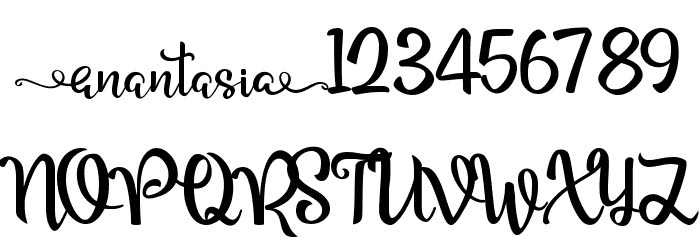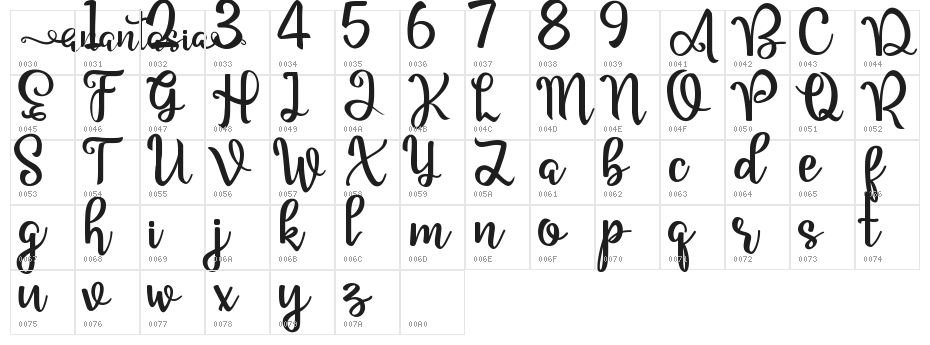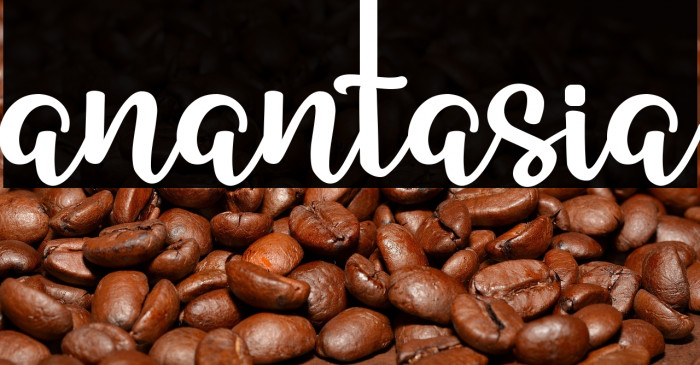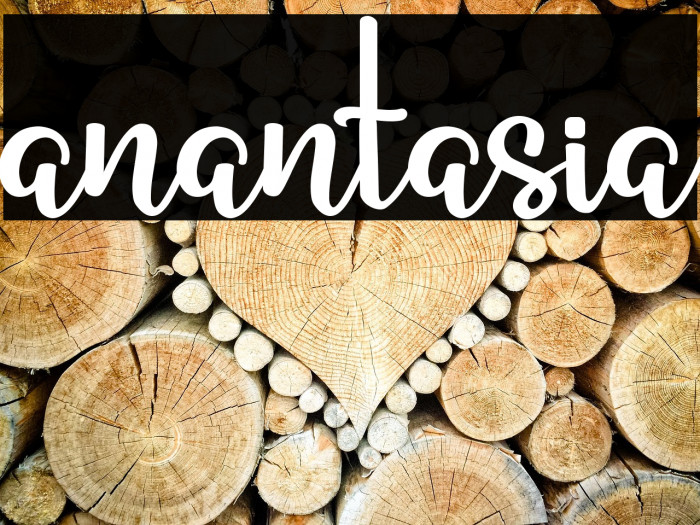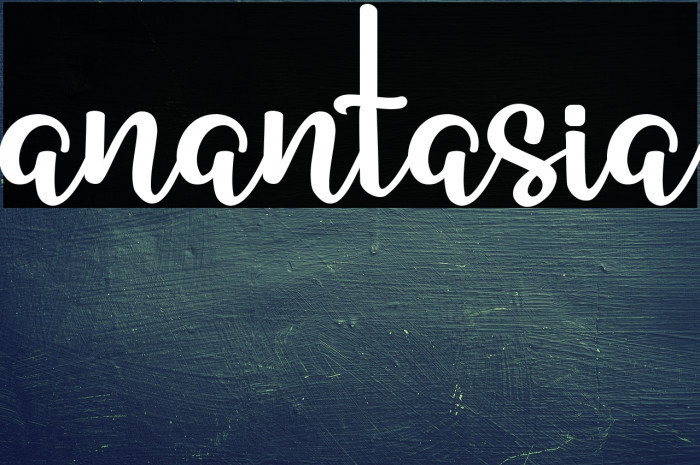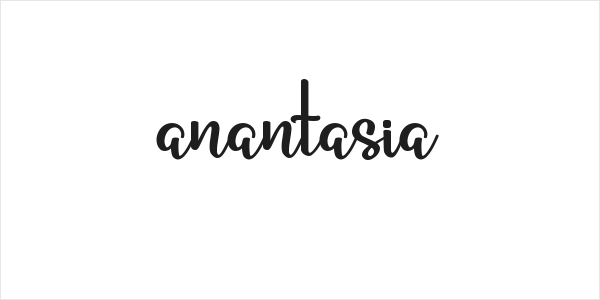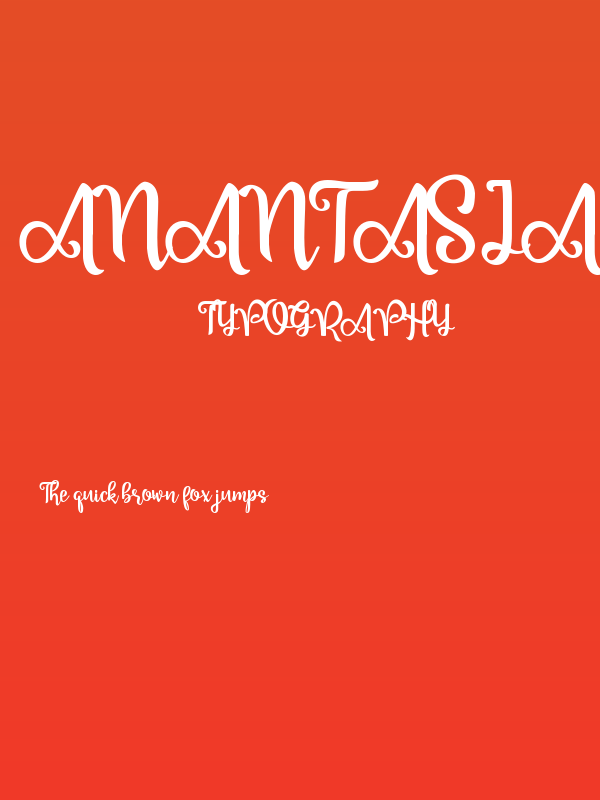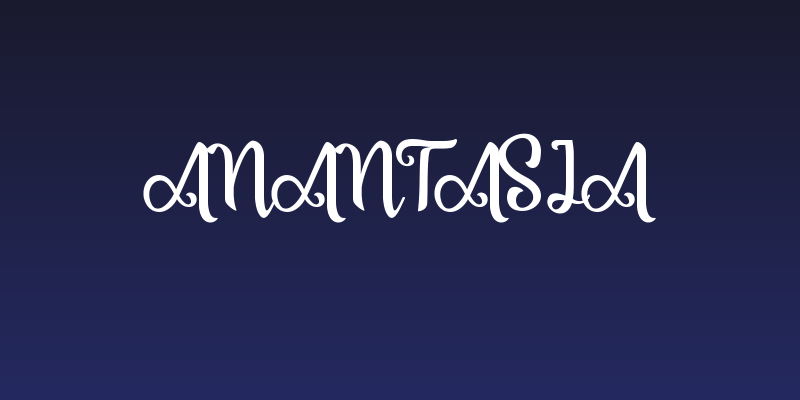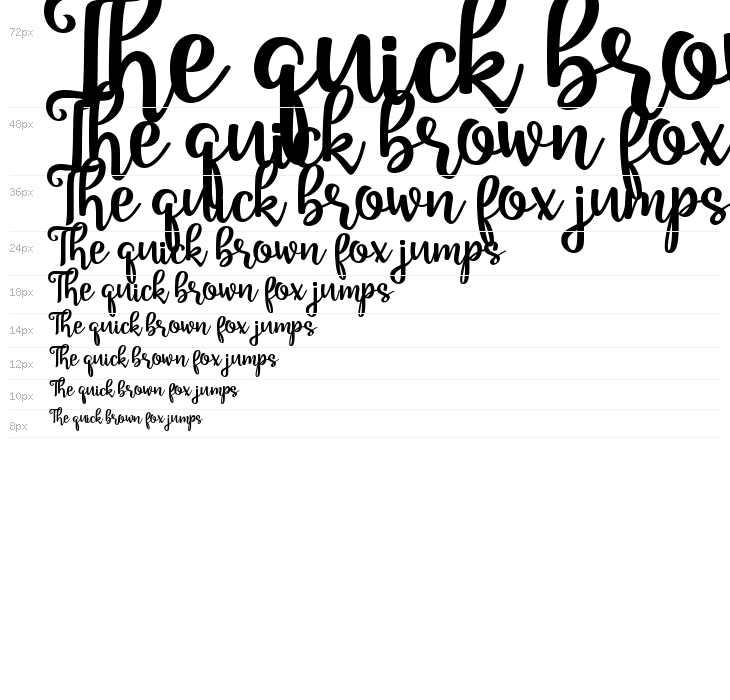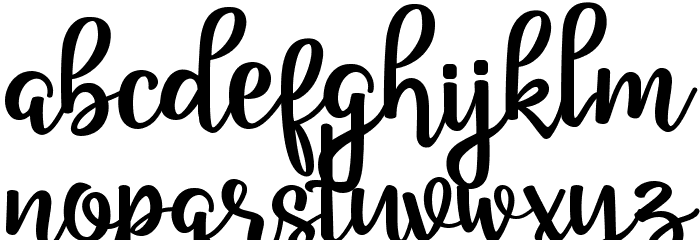
anantasia Font
anantasia Description
This font exudes a playful and whimsical charm, characterized by its flowing, cursive script style. The letters are interconnected with elegant loops and swirls, creating a sense of movement and fluidity. The uppercase letters are bold and expressive, while the lowercase letters maintain a consistent flow, enhancing readability despite their decorative nature. The numbers follow the same stylistic cues, ensuring a cohesive look throughout. This font is ideal for projects that require a touch of elegance and creativity, such as invitations, greeting cards, and branding materials.
| Proposed Projects | Ideal for invitations, greeting cards, branding, and creative projects. |